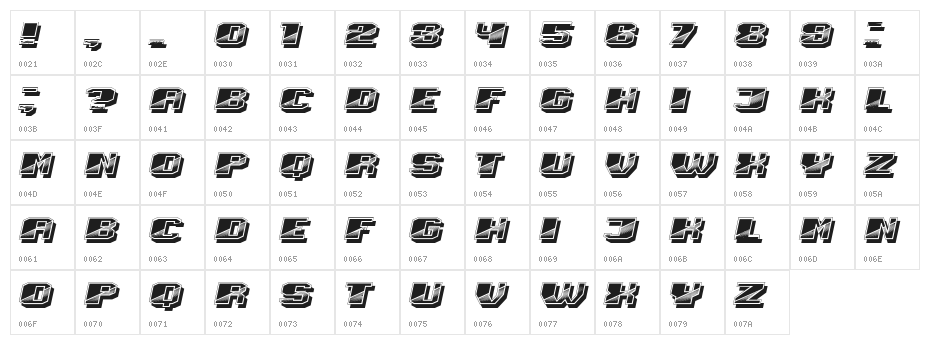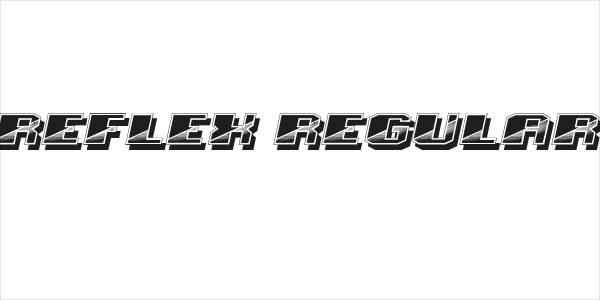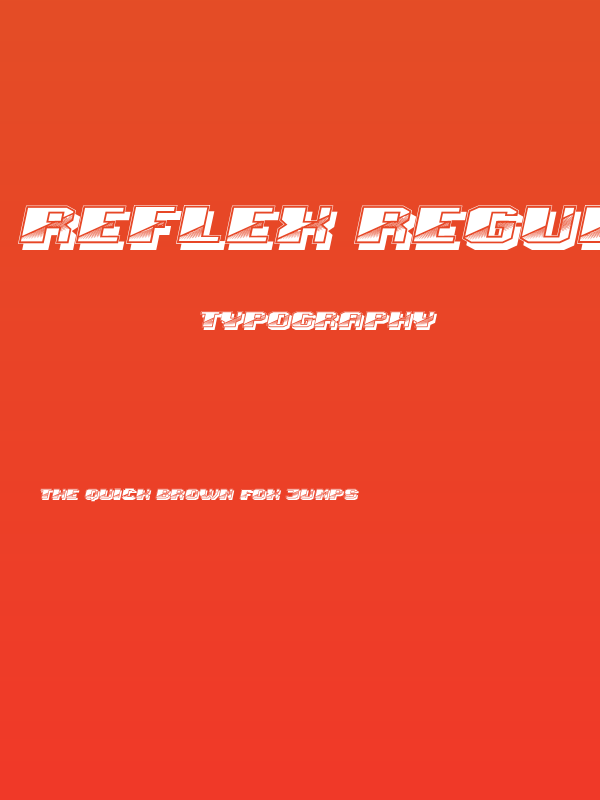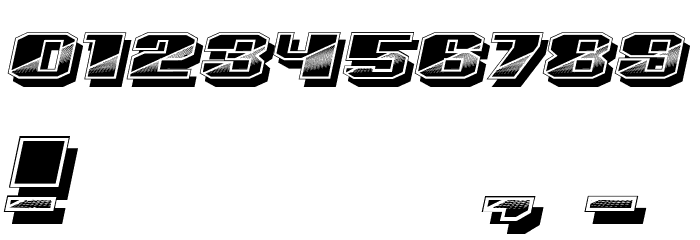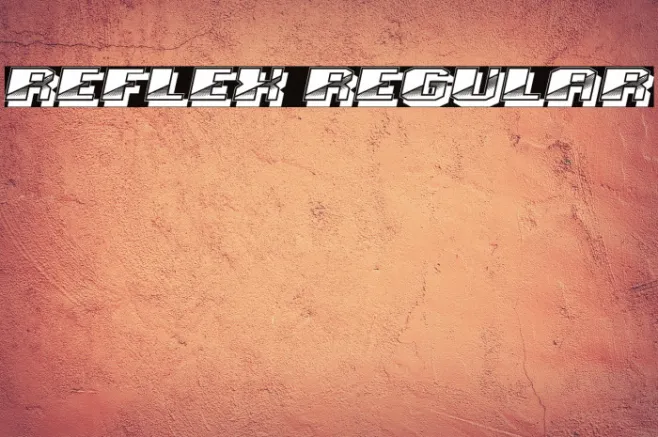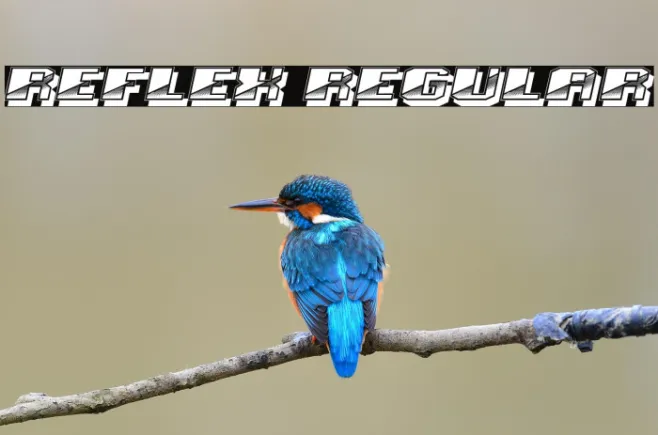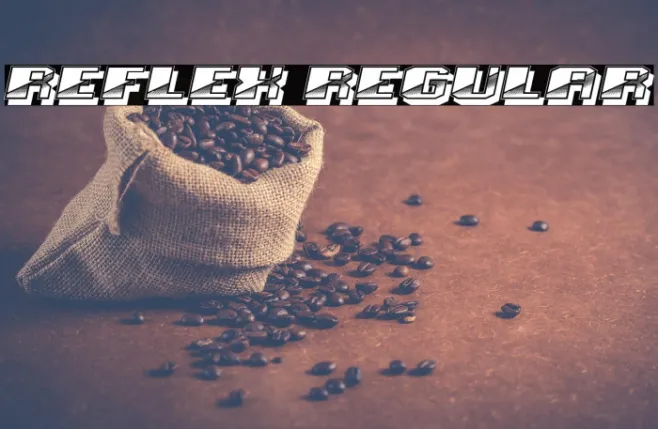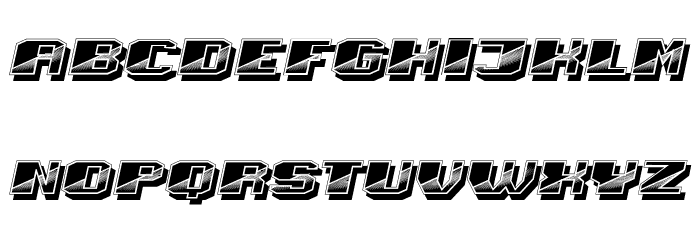
Reflex Regular Font
Reflex Regular Description
This font features a bold and dynamic 3D effect, characterized by its thick, blocky letters with a shadowed outline that gives a sense of depth and dimension. The uppercase letters are angular and geometric, with a strong presence that commands attention. The numerals and special characters maintain this bold style, ensuring consistency across all glyphs. The font's design is reminiscent of retro or vintage styles, often seen in classic arcade games or comic book titles. Its unique appearance makes it ideal for projects that require a standout, eye-catching typeface.
| Overall Style | Retro, Decorative |
| Proposed Projects | Ideal for video game titles, comic book covers, posters, and branding that requires a bold, retro aesthetic. |